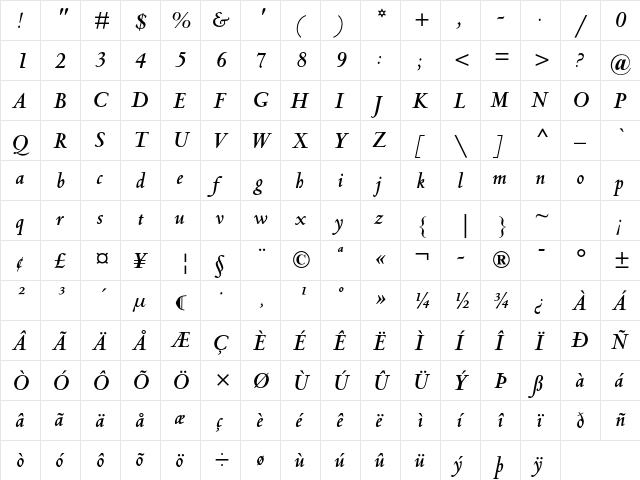
Centaur MT Std Bold Italic Font Preview
Centaur MT Std Bold Italic
Centaur MT Std Bold Italic Font Details
| Designer | Bruce Rogers, Frederic Warde |
Design Context for Centaur MT Std Typeface
Centaur MT Std is a composed and adaptable typeface that performs quietly and consistently across a wide range of design contexts. The slanted form adds forward momentum and visual energy. The heavy weight commands attention and anchors typographic hierarchies.
Pro Tip: Try Centaur MT Std for annotation and caption copy alongside an upright companion — the contrast in angle creates a dynamic but ordered typographic system.